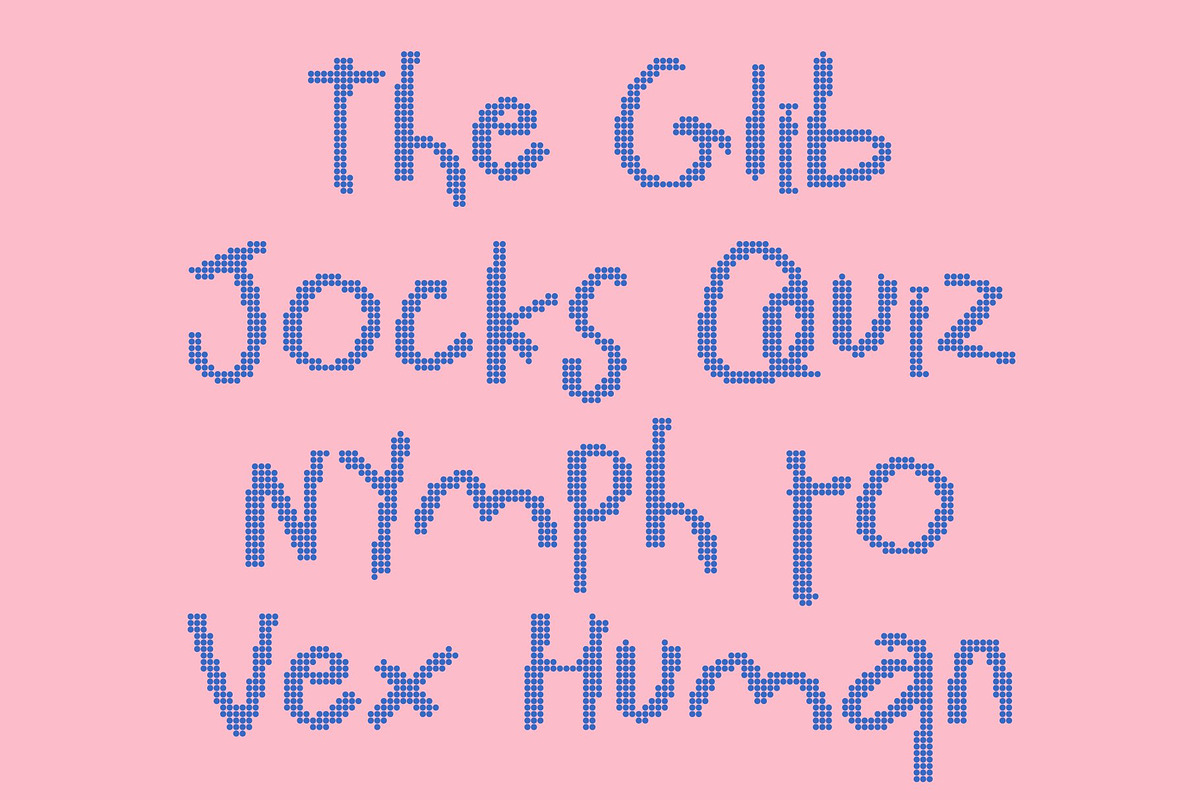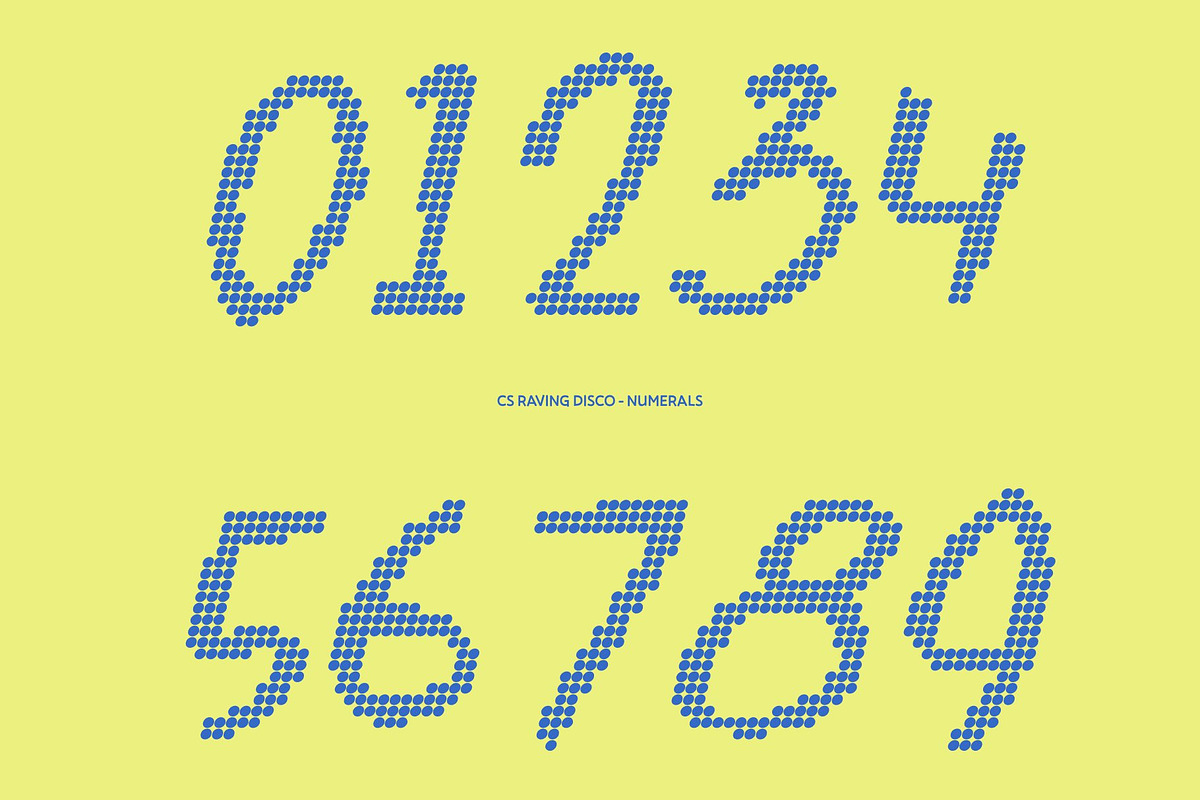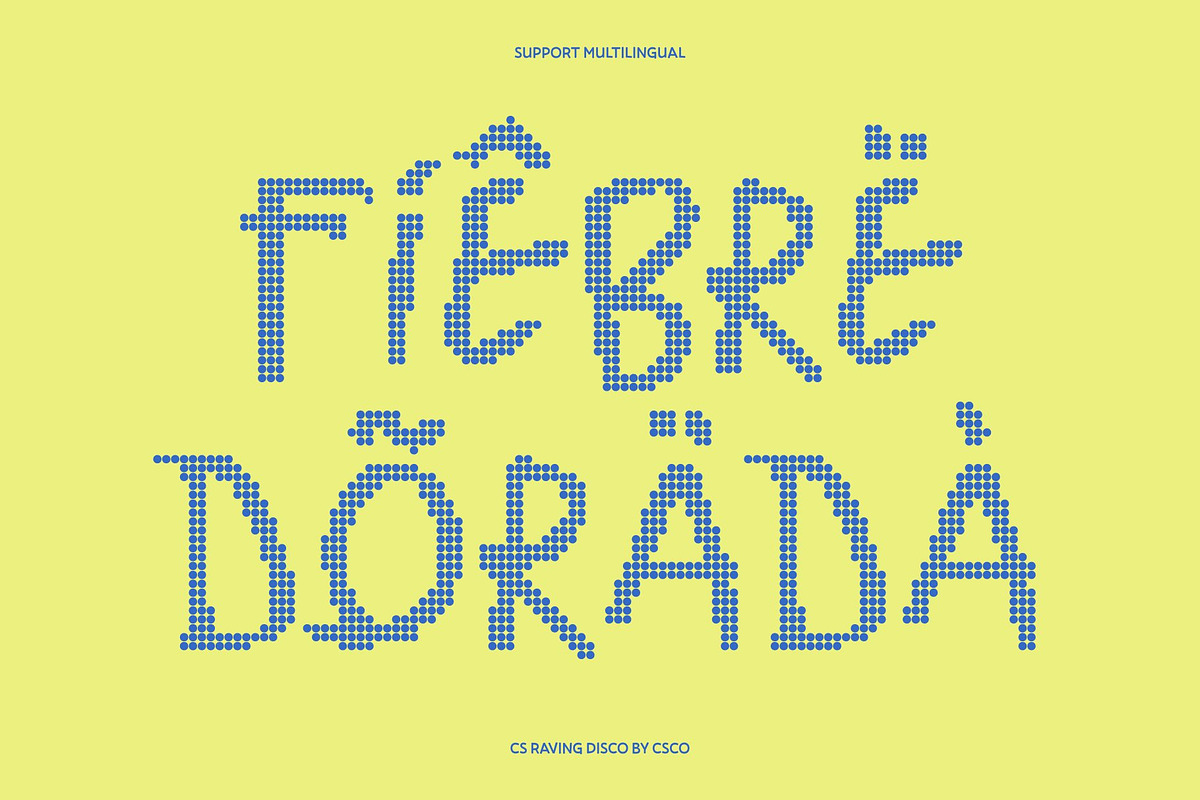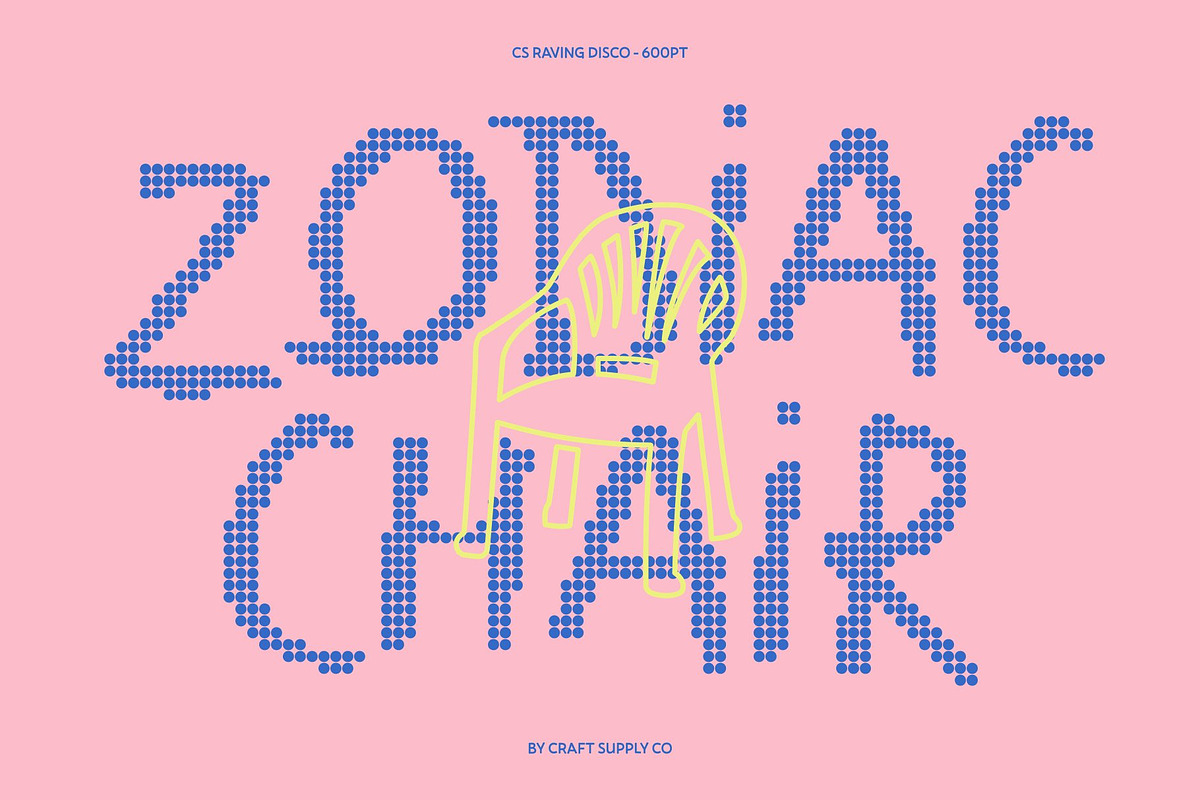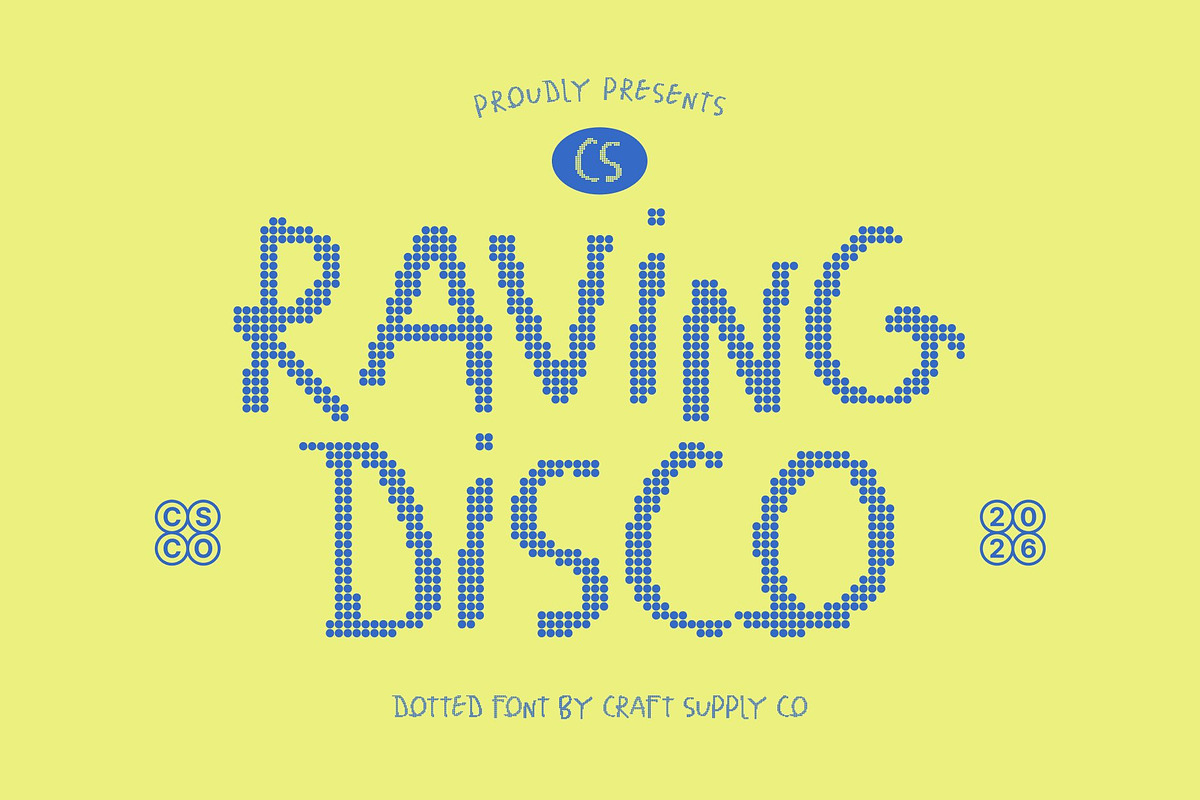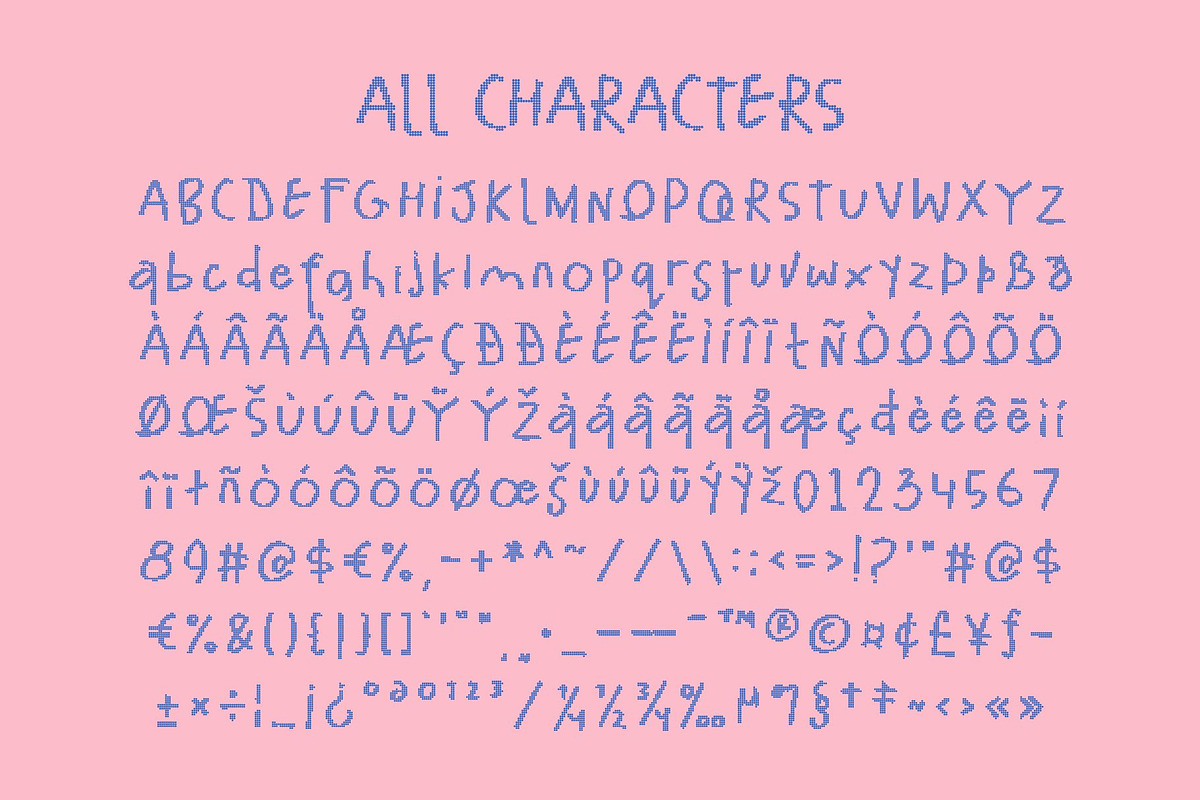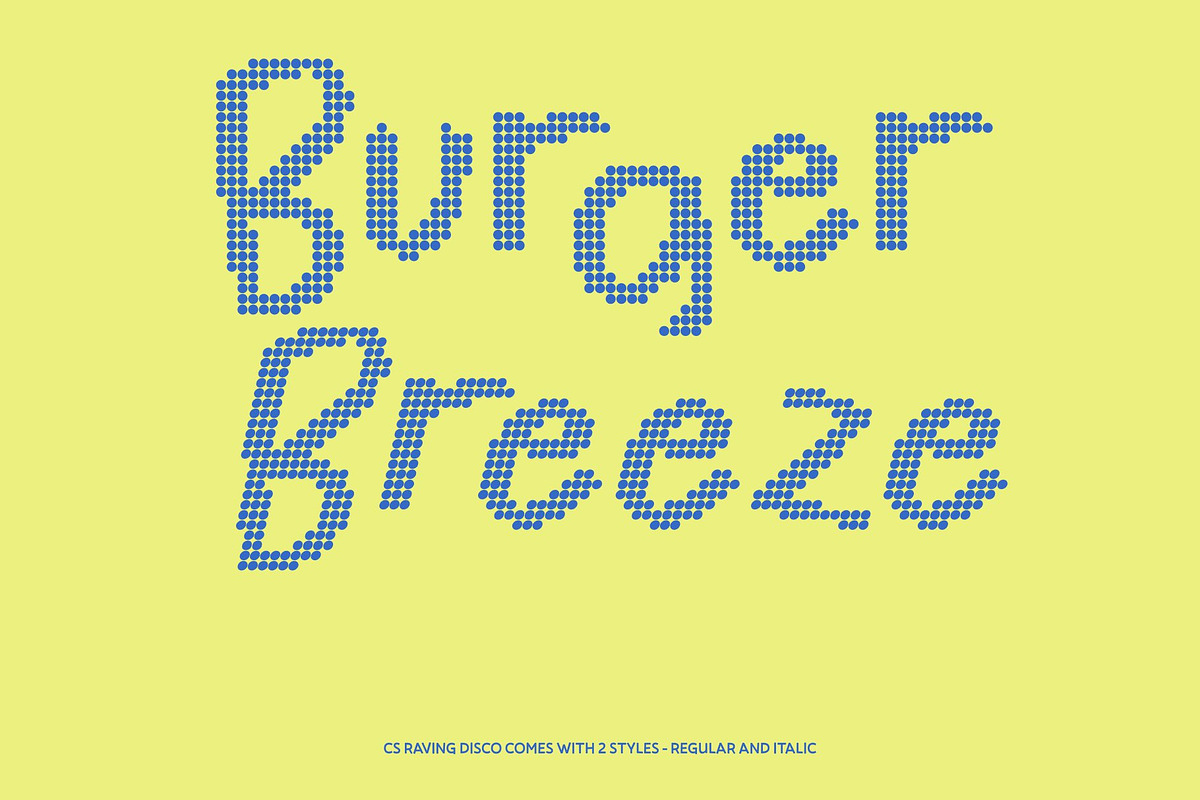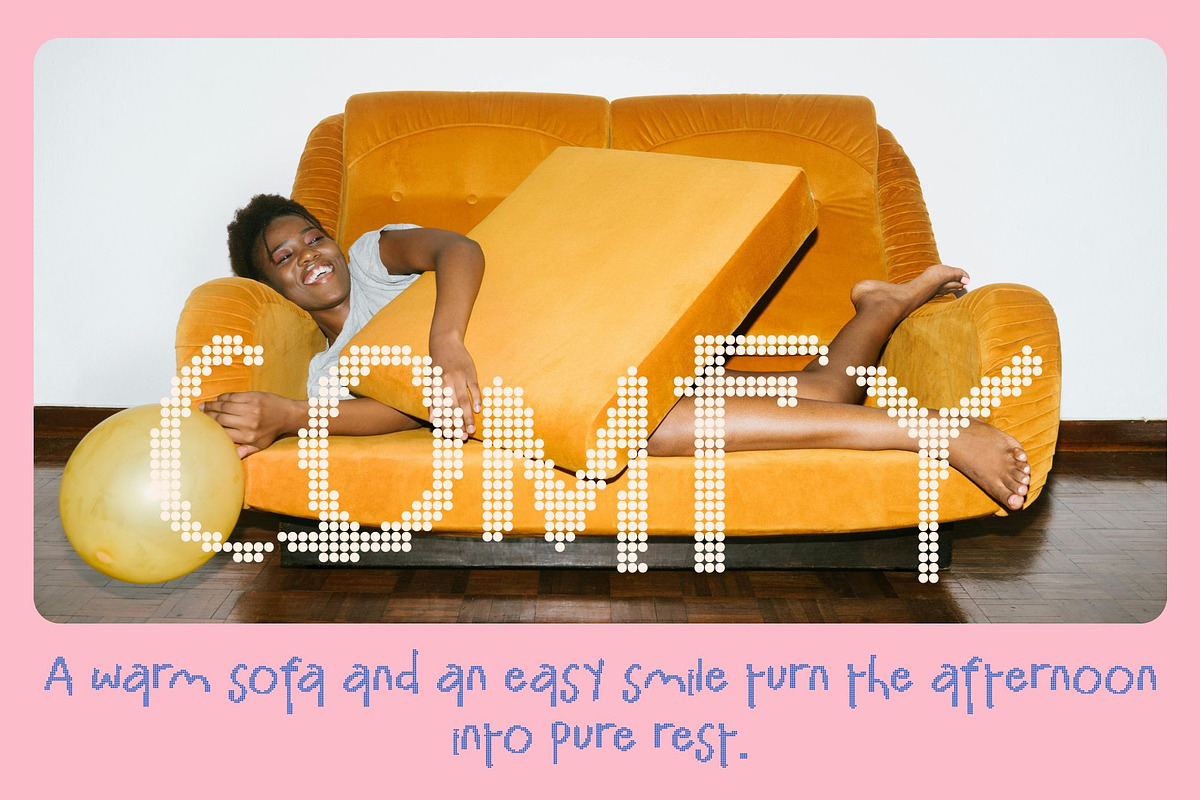
CS Raving Disco
CS Raving Disco – Messy Energy with Sparkling Playfulness
Freely Scribbled Style with Disco Flair This is a messy handwritten display font that captures the energy of irregular, freely scribbled strokes, enhanced with a lively disco-style dotted texture. Its gritty, spontaneous letterforms create a natural hand-drawn appearance, while the dotted sparkle adds a playful rhythm that makes the typography feel vibrant and full of life.
Marker-Inspired Expression with Luminous Texture Inspired by bold marker lettering, this font blends spontaneity with expressive personality. The uneven lines and playful shapes give each character a lively, human quality, while the disco-inspired dotted surface introduces an extra layer of visual excitement and charm.
Playful Imperfection with Creative Impact The intentionally irregular construction gives this font its unique personality. The messy handwritten style feels energetic and authentic, while the sparkling texture enhances its decorative appeal. Together, they create a typeface that feels both carefree and visually engaging.
Perfect for Fun and Creative Projects This font works beautifully for posters, social media graphics, packaging, children’s designs, and playful branding. Its lively character makes headlines feel dynamic and expressive, helping creative projects stand out with personality and charm.
CS Raving Disco Regular
CS Raving Disco Italic